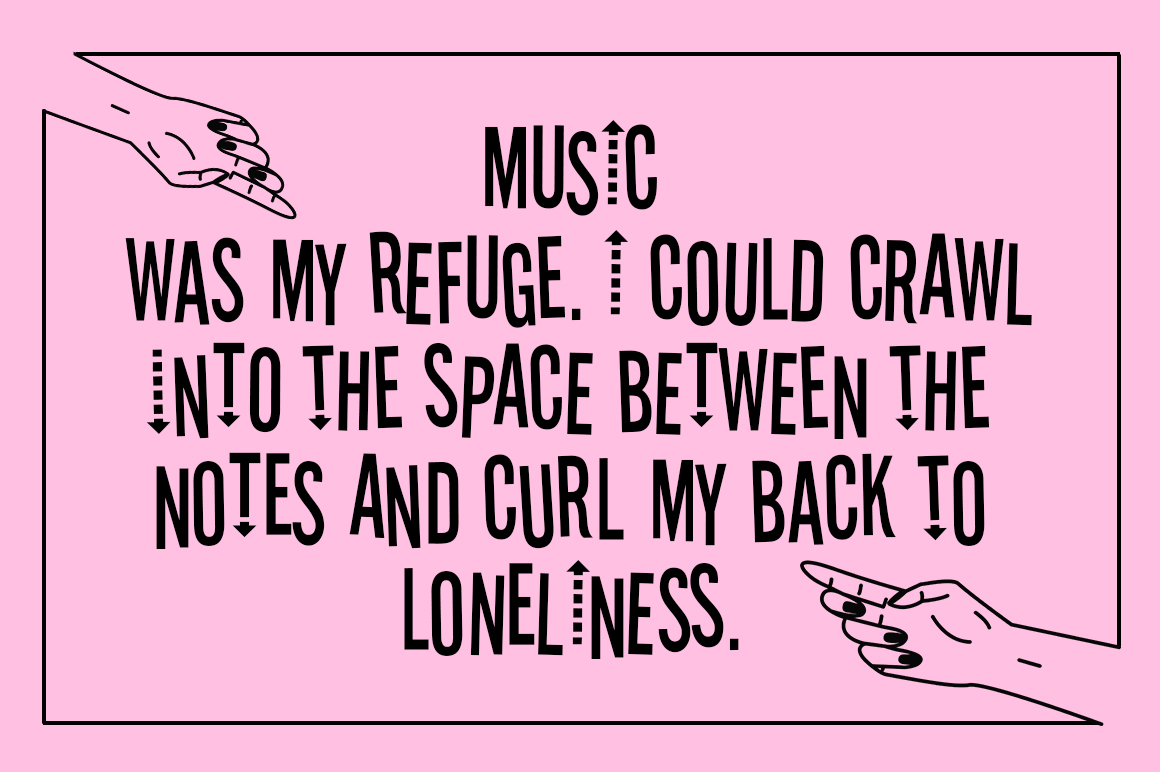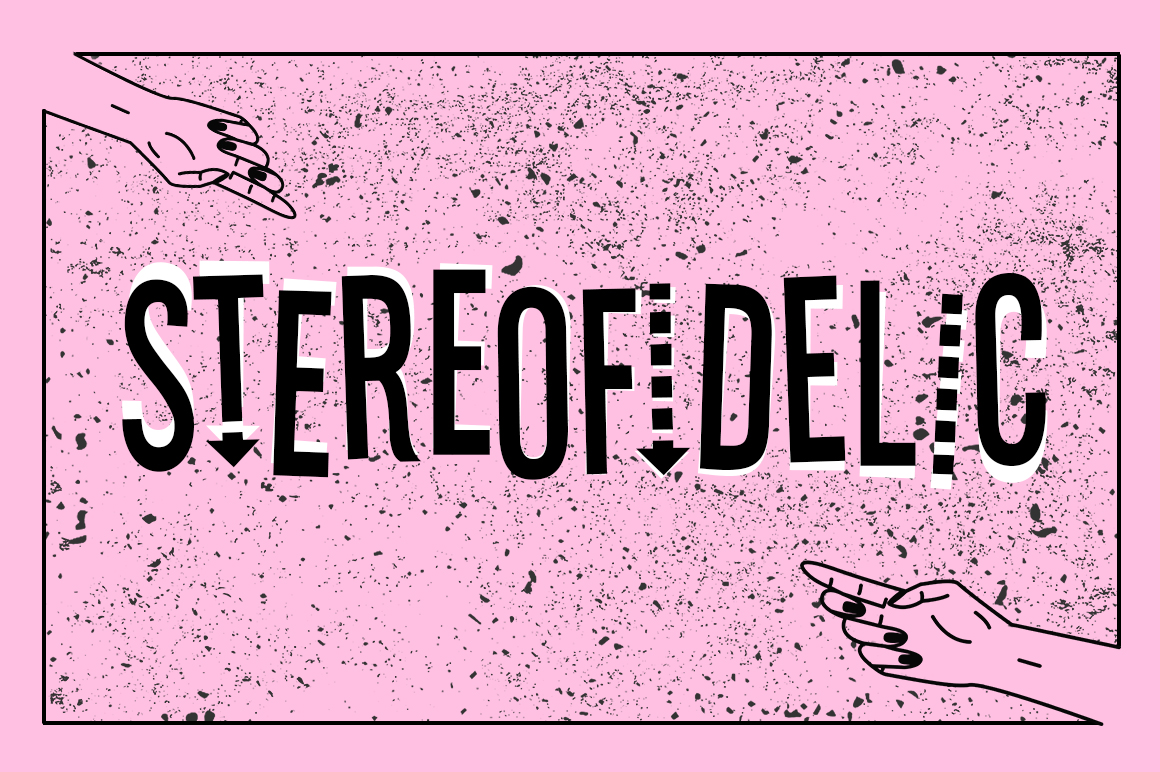
HomePersonal Use FreeStereofidelic Personal Use Free Stereofidelic FacebookXPinterestWhatsApp 1 of 2 About Stereofidelic Font Stereofidelic is an embellished narrow headline font, created in 1999. This fun retro font is available for free from Typodermic. DOWNLOAD NOW People also explored Yesslyn Font Live Content Churrosh Font Janchuk Font Hello Caty Font Dingbats Abstract Font Brilganttyne Font Queen Azula Font Betrends Font 389 0 TagsStereofidelic Font Previous articleDream OrphansNext articleBahjera LEAVE A REPLY Cancel reply Comment: Please enter your comment! Name:* Please enter your name here Email:* You have entered an incorrect email address! Please enter your email address here Website: Save my name, email, and website in this browser for the next time I comment. Personal Use Free Starborn Font Personal Use Free Read more about this font Namskow Personal Use Free Read more about this font Loving You Personal Use Free Read more about this font Aelten Personal Use Free Read more about this font BLOG The 10 Best Handwriting Fonts to Add Personality to Your Designs 10 of the Best Handwriting Fonts for Adding Personality to Your Designs There will undoubtedly be no other better choice than handwriting fonts to give... Transform Your Website: Elevate Your Typography with 7 Best Web Font Generators 5 Fonts That Will Dominate Design Trends in 2026 Where to Buy American Fonts Online in 2024